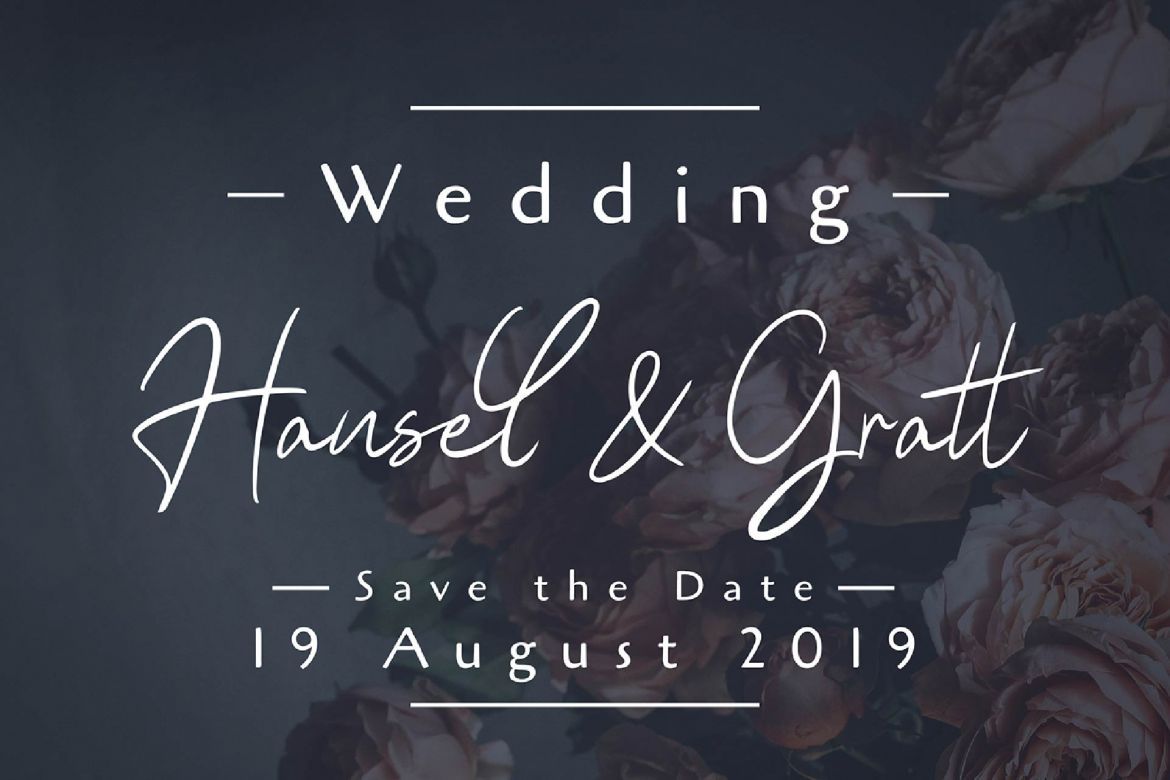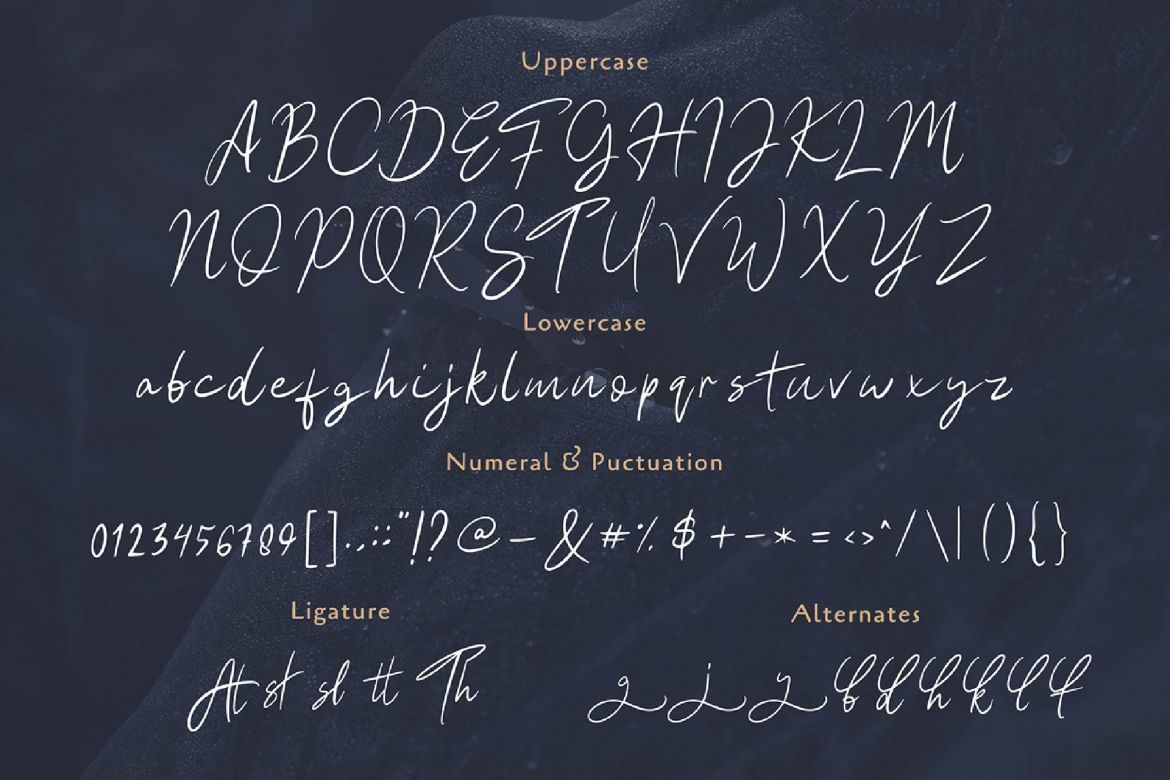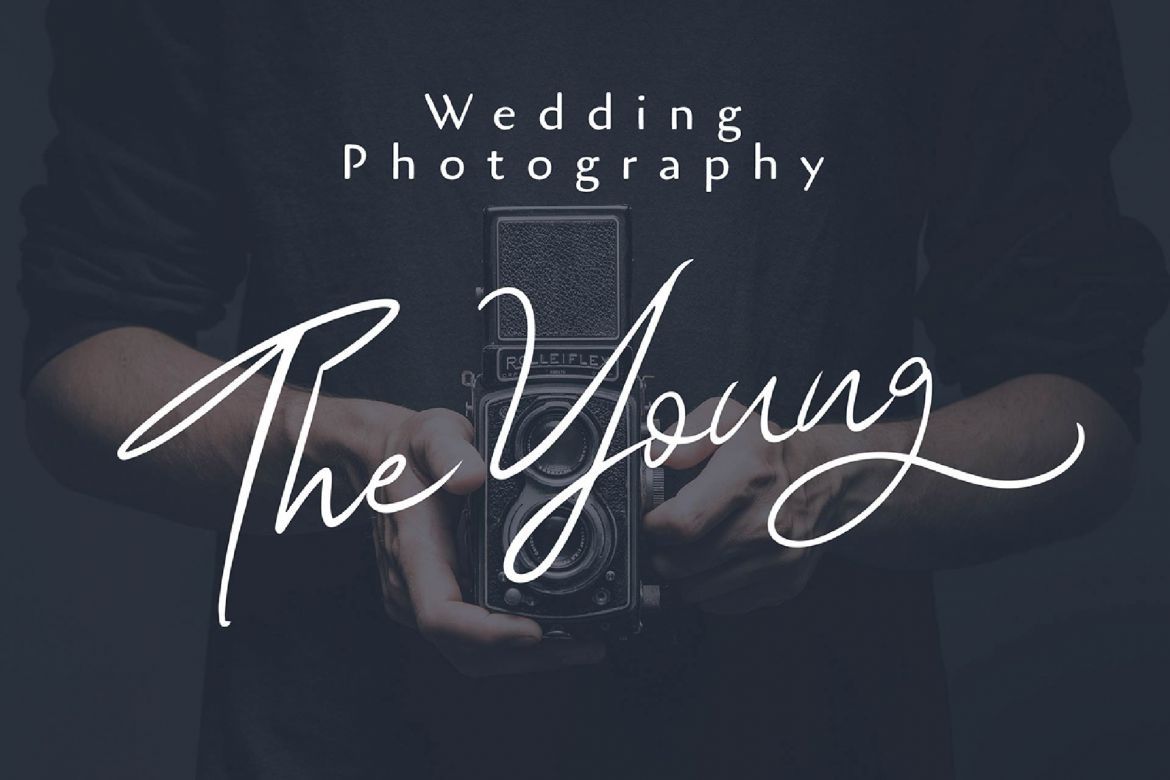
Hesgaki - Luxury Signature Font
Hesgaki - Luxury Signature Font with a calligraphy style, So beautiful on invitation like greeting cards, branding materials, business cards, quotes, posters, and more!
The alternative characters were divided into several features such as Stylistic Sets, Stylistic Alternates, Contextual Alternate, SWASH and Ligature.
• alternates and ligatures